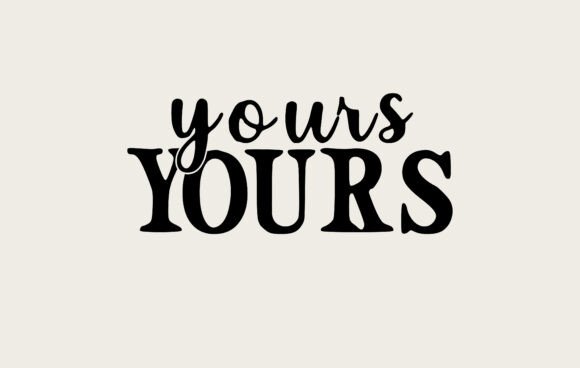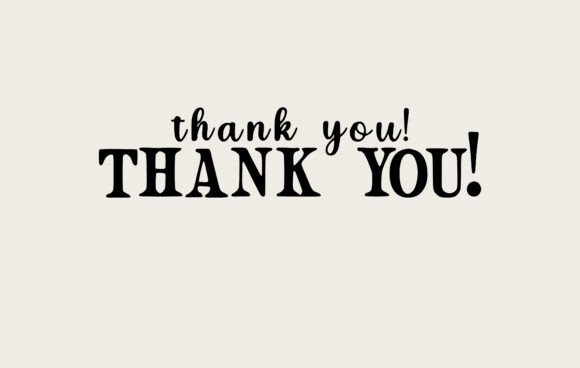
Introduction to Forever Yours Font
The moment you’re staring at a blank canvas, waiting for inspiration to strike, and suddenly, a font pops into your mind – it’s like a spark of creativity has ignited. For designers, this is the sweet spot where ideas come alive, and the right font can be the game-changer. Enter the Forever Yours Font, expertly designed to elevate your creative projects to new heights.
This beautiful font is more than just a pretty face; it’s a versatile design resource that’s perfect for various projects, from magazine headlines and social media to branding, wedding invitations, and more. With its high-quality design and legible typography, the Forever Yours Font is an absolute must-have for any designer looking to take their work to the next level.
Key Features of Forever Yours Font
- High-quality, elegant design perfect for creative projects, including invitations, cards, and more.
- Font size: 12-24 points, with a resolution of 300 DPI for high-quality printing and digital use.
- Features a unique, cursive script style with a romantic and vintage feel, ideal for expressing love and appreciation.
- Perfect for wedding invitations, anniversary cards, and other special occasions where a touch of elegance is desired.
Honest Review: Forever Yours Font
I recently had the chance to work with the Forever Yours Font, and I’m excited to share my thoughts with you. As a designer, I’m always on the lookout for high-quality design resources that can elevate my creative projects. Forever Yours Font definitely fits the bill.
One of the things that stands out about this font is its elegant and romantic feel. It’s perfect for projects that require a touch of sophistication and whimsy. I particularly love the ✨ variety of styles and weights available, which makes it easy to customize and tailor to your specific needs.
- ✨ Variety of styles and weights available
- Transparent background, making it easy to use with any image or design
- ⚠️ Limited customization options, which may not be ideal for more complex design projects
- ⚠️ Not suitable for projects that require a more modern or edgy feel
Overall, I’m really impressed with the Forever Yours Font. While it may not be perfect for every project, it’s definitely a valuable addition to any designer’s toolkit. If you’re looking for a high-quality, elegant font for your next creative project, I’d definitely recommend giving it a try.
Tips for Getting the Most Out of Forever Yours Font
For the best results, use the Forever Yours Font in conjunction with other high-quality design elements, such as graphics and images. Experiment with different font sizes, colors, and styles to create a unique and eye-catching design.
The Forever Yours Font is ideal for use in creative projects, such as wedding invitations, baby announcements, and holiday cards. Its elegant and sophisticated design makes it perfect for formal events and special occasions.
Unlike Forever Yours Font, Great Vibes Font is a more versatile and modern alternative, suitable for a wide range of design projects, from branding to packaging.
Yes, the Forever Yours Font is designed to be used with a transparent background, making it perfect for creative projects that require a clean and elegant look. You can use it for logos, branding, or any other design project that requires a high-quality font.
Is the Forever Yours Font suitable for large-scale designs?
Yes, the Forever Yours Font is designed to be scalable, making it perfect for large-scale designs, such as billboards, posters, or even signage. Its high-quality design ensures that it will remain crisp and clear even at large sizes.